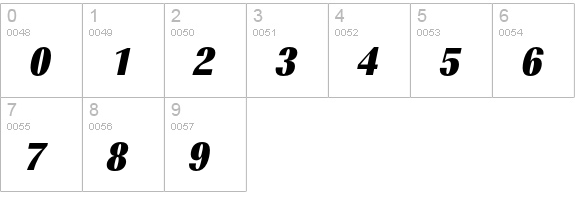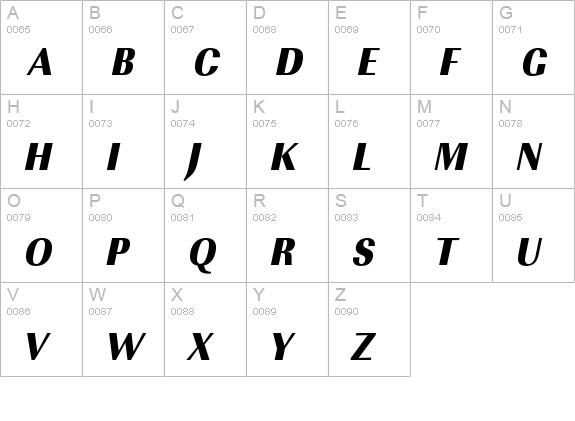
URWImperialTOTUltBolEN Oblique Font Details
URWImperialTOTUltBolEN Oblique is a distinctive, italic variant in the URWImperialTOTUltBolEN typeface family \xE2\x80\x94 well suited to design and typography projects.